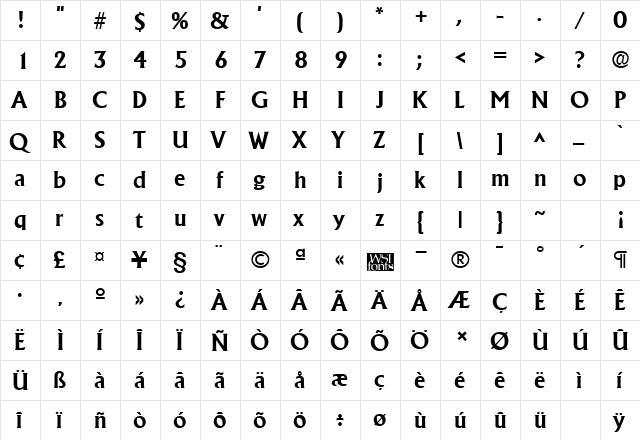
Alberta Bold
Design Context for Alberta Typeface
Alberta takes a measured approach to typography — its balanced proportions and neutral character make it a reliable workhorse for both digital and print work. Its bold stroke weight gives it real presence on the page.